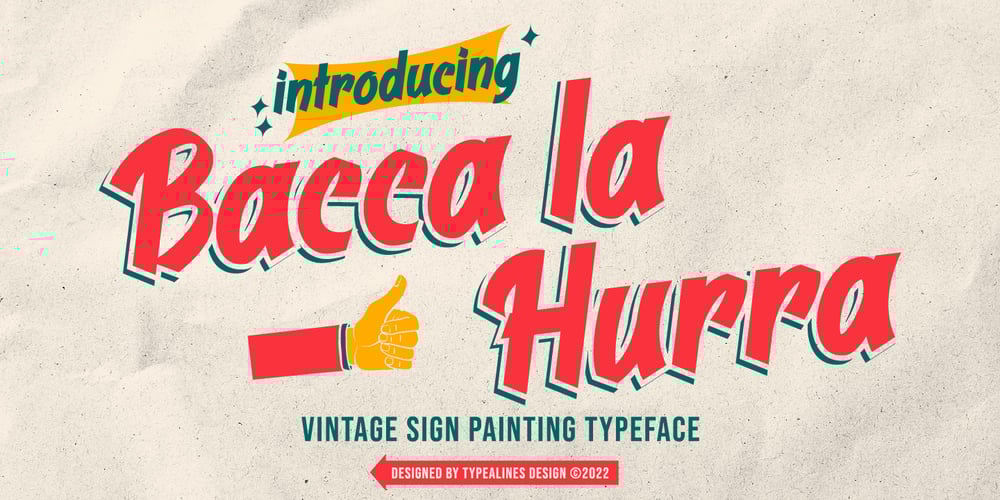
Bacca la Hurra
Bacca la Hurra font
Bacca la Hurra Font Family was designed by Ilham Wahyu and published by Ilhamtaro. Bacca la Hurra contains 1 styles and family package options. BACCA LA HURRA is a vintage font in the style of sign painting, characterized by bold strokes and squares. Consisting of Uppercase, Lowercase, Numerials and Punctuations, this font is perfect for vintage food packaging designs or other vintage branding.To enable the OpenType Stylistic alternates, you need a program that supports OpenType features such as Adobe Illustrator CS, Adobe Indesign & CorelDraw X6-X7.Cheers!